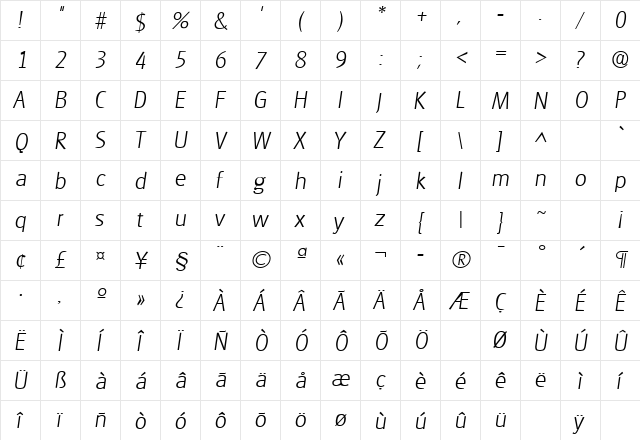
GlasgowLH Italic
Design Context for GlasgowLH Typeface
GlasgowLH is a composed and adaptable typeface that performs quietly and consistently across a wide range of design contexts. The dynamic lean of this cut emphasises speed and emphasis in any layout.
Pro Tip: Use GlasgowLH for emphasis, pull quotes, and subheadings where its slanted energy can add rhythm to the layout.